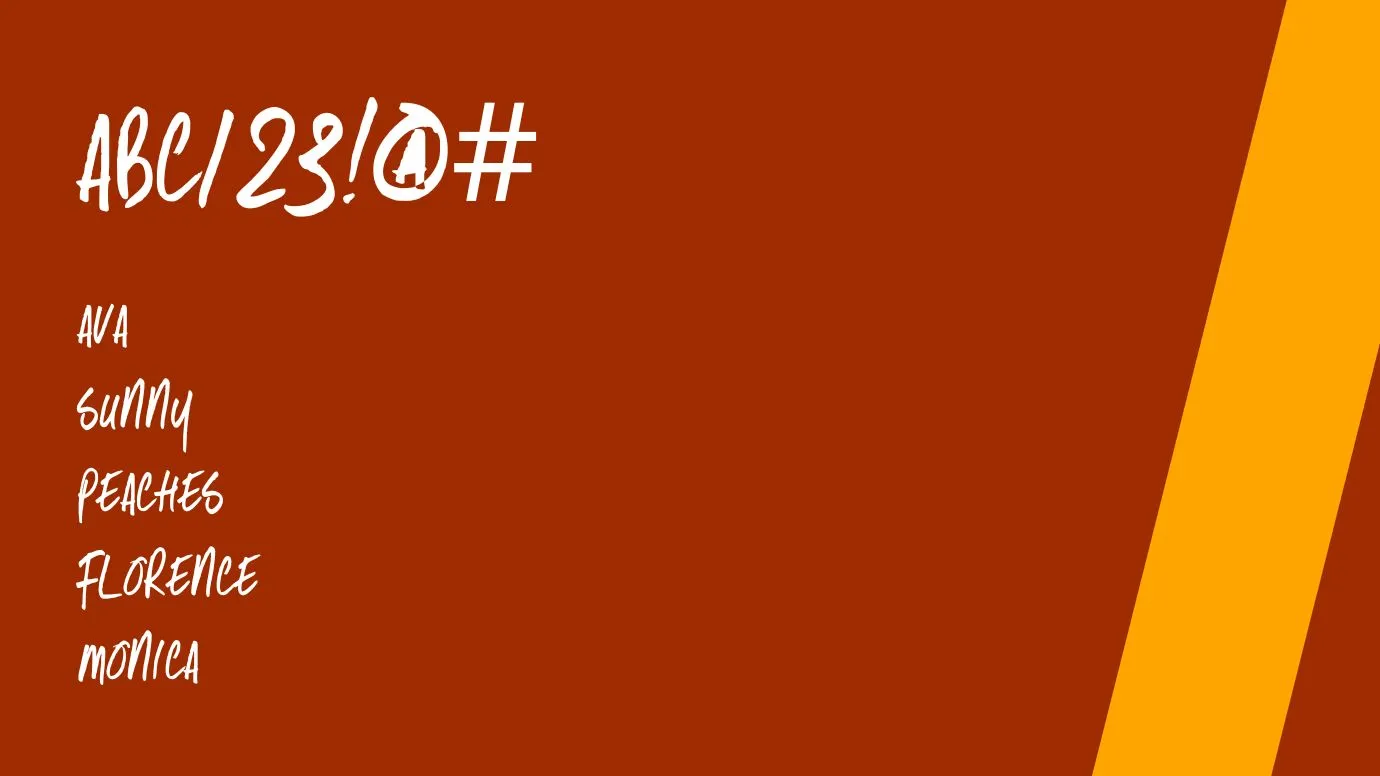
Another very beautiful font from the famous family name, Same Same But Different Font is a loose script handwritten typeface having excellent legibility.
This Font was designed by David Kerkhoff and published by Hanoded in the year 2011. It evokes Post-it scripts or notebook doodles and can be used virtually everywhere.
The typeface is quite similar to Behind Violet Eyes. Both are eye-catching as the glyphs of both typefaces include many alternate characters and ligatures which gives it a unique appearance.
The typeface is perfect for making website headers and other design projects that require a touch of elegance.
You can use it to make interesting headlines or quotes.
It is a remarkable typeface and is used commonly. because of its unique appearance and versatility.
The single attractive regular style combines different factors including uppercase, lowercase letters, digits, punctuation, symbols, glyphs, and a number of supported languages.
The typeface is an ingredient of extraordinary style and compelling attractiveness.
It is regarded to be one of the best fonts with a feel of quality, looks, and formation.
The typeface is a perfect choice for demonstrating visual design like shape color texture etc.
Creator of Same Same But Different Font
Same Same But Different typeface was created by David Kerkhoff and published by Hanoded in the year 2011. It evokes Post-it scripts or notebook doodles and can be used anywhere.
Same Same But Different Font Family Includes
- Same Same But Different Regular
View of Same Same But Different
Same Same But Different Font Details
| Name | Same Same But Different Font |
| Designer | David Kerkhoff |
Where I can use Same Same But Different typeface?
You can utilize it for different designs such as logo designs, signs, printings, social media posts, promotions, and many more projects.
What is similar to the Same Same But Different typeface?
A similar typeface to this wonderful typeface is Light Shot Typeface. It has a stylish and amazing texture look.